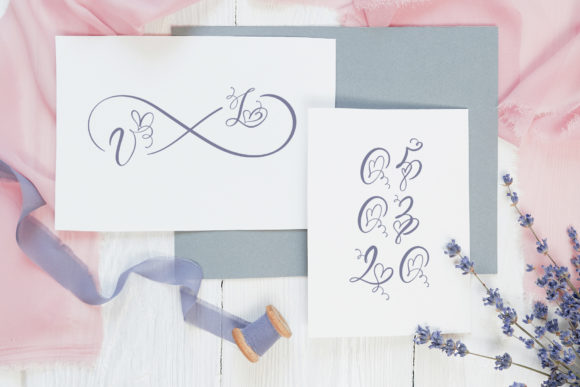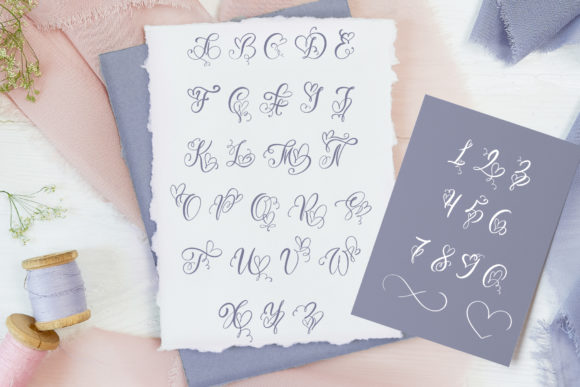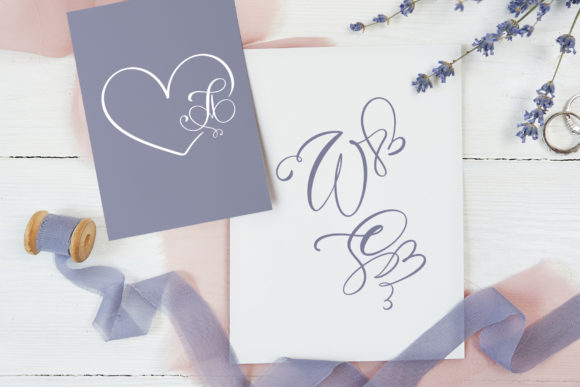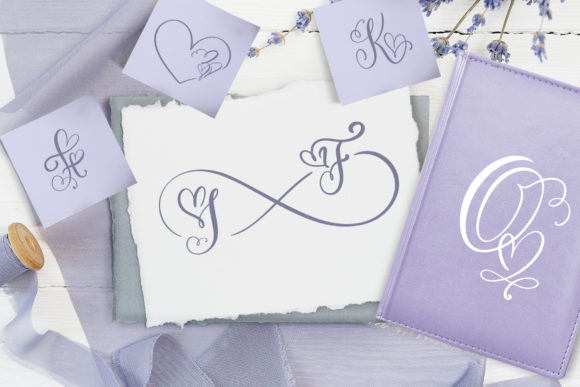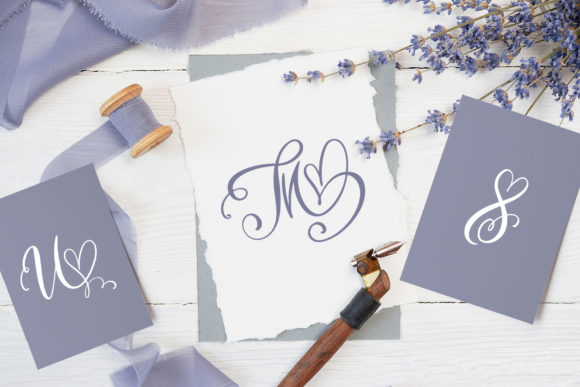
About Initial Valentine Font
Initial Valentine is a handwritten font that includes unique flourish monogram letters.
Perfect for weddings, Valentine’s Day greeting cards, logos, invitations, etc.
The elegant calligraphic lines will give a romantic vibe to your next designs.